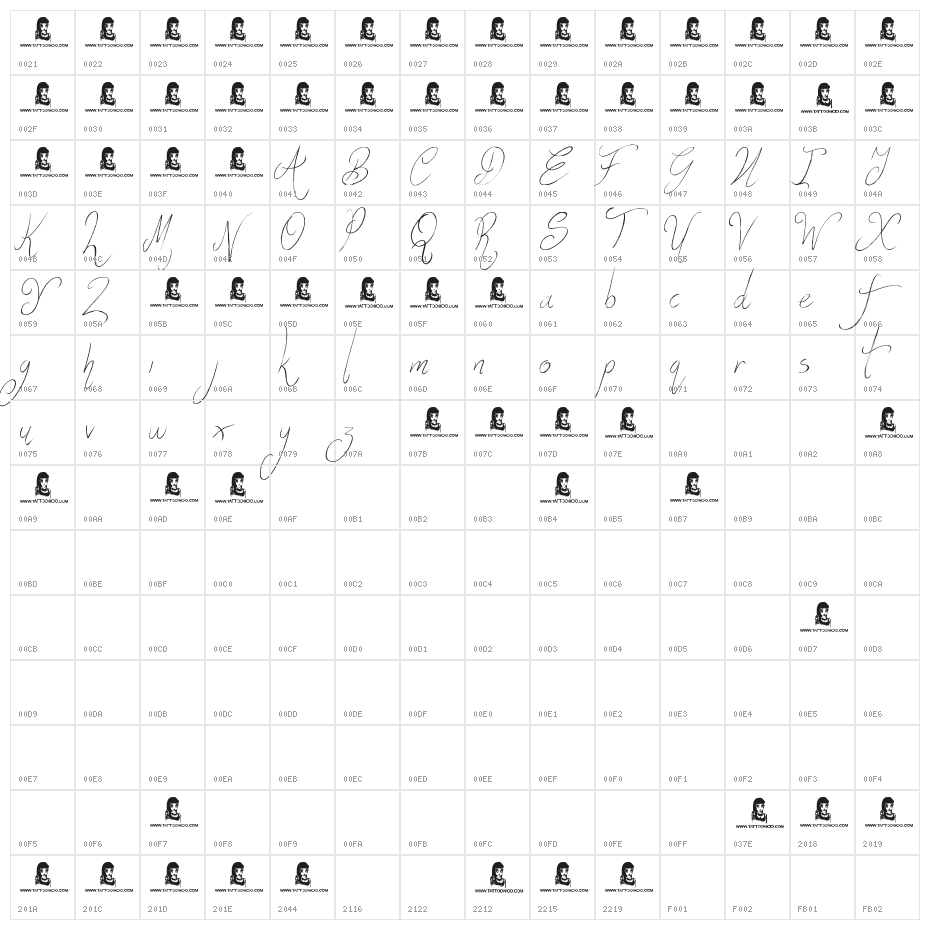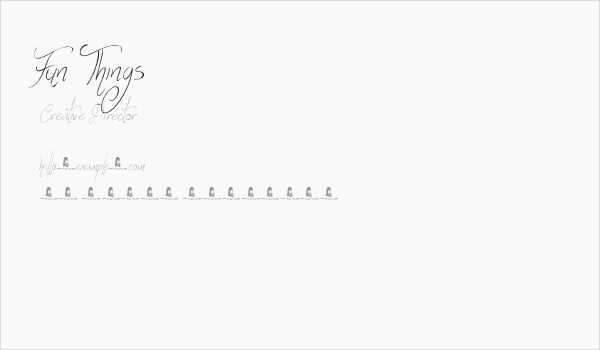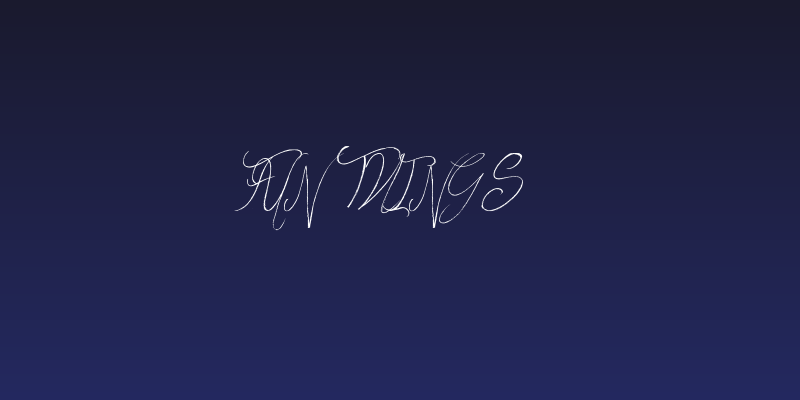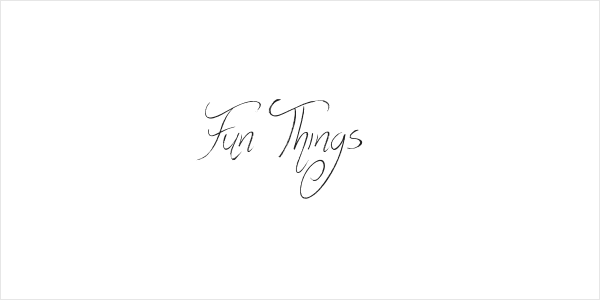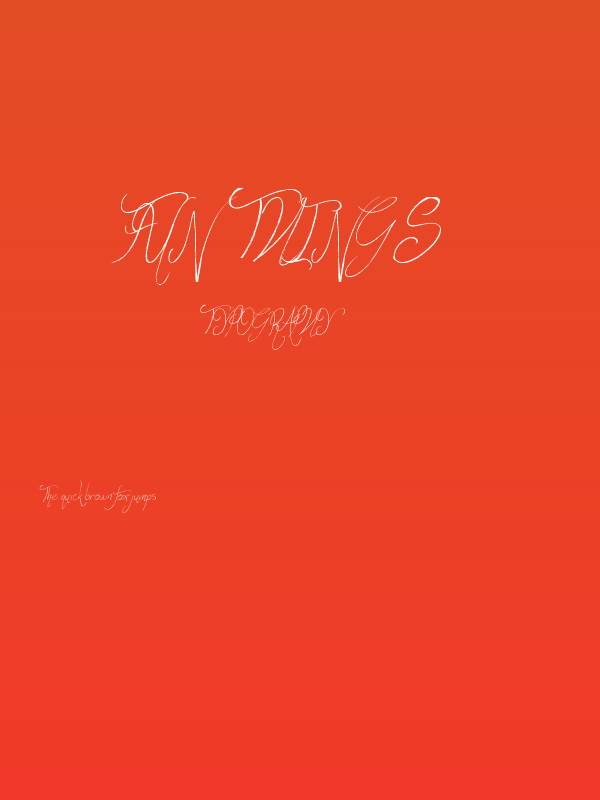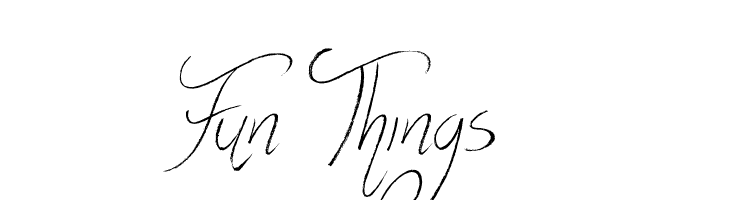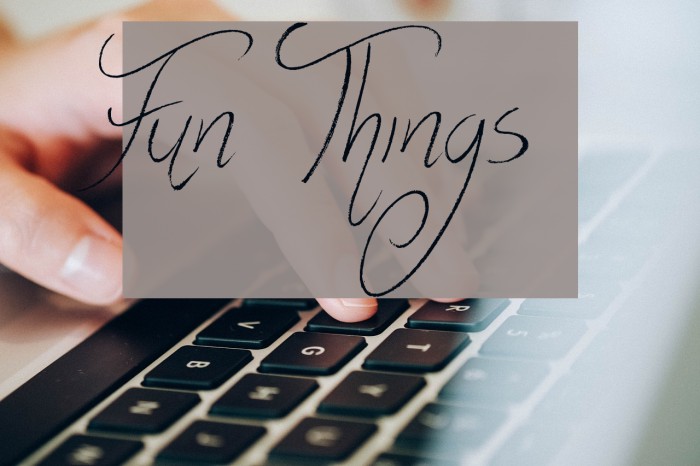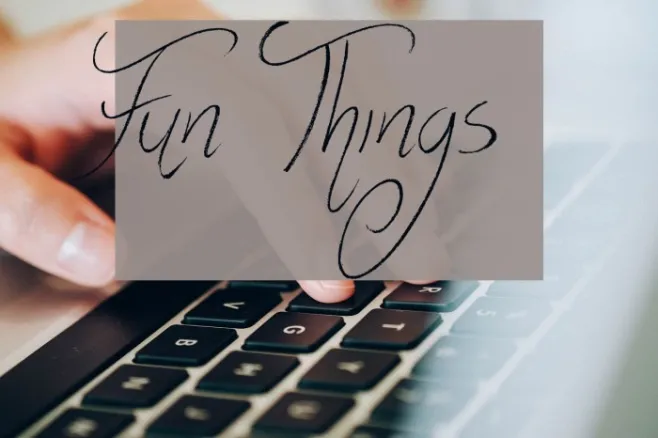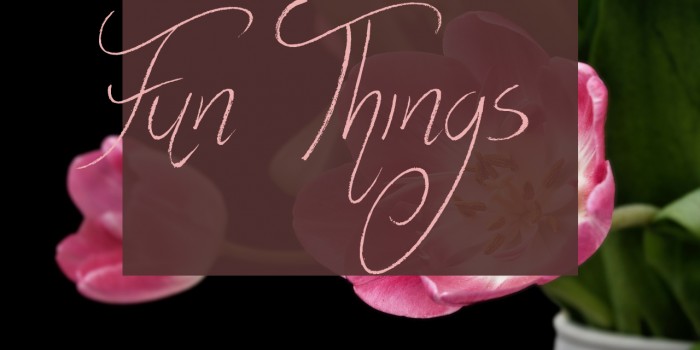
Fun Things Font
Fun Things Description
This font features an elegant and flowing script style, characterized by its graceful curves and intricate letterforms. The strokes are varied, with some letters displaying a delicate, almost wispy quality, while others have a more pronounced and bold appearance. The uppercase letters are particularly ornate, with sweeping lines and loops that give a sense of movement and fluidity. The lowercase letters maintain this fluidity, though they are slightly more restrained, providing a harmonious balance. The overall design suggests a hand-drawn aesthetic, reminiscent of calligraphy, making it suitable for projects that require a touch of sophistication and artistic flair.
| Proposed Projects | Ideal for wedding invitations, elegant branding, personal stationery, and artistic projects that require a sophisticated touch. |